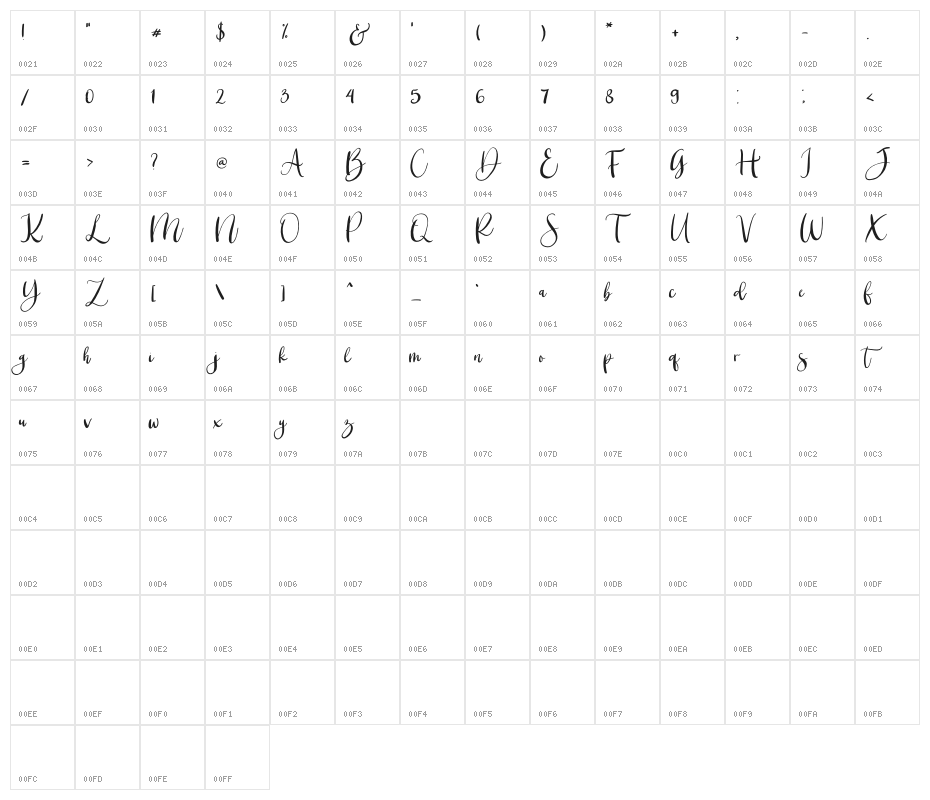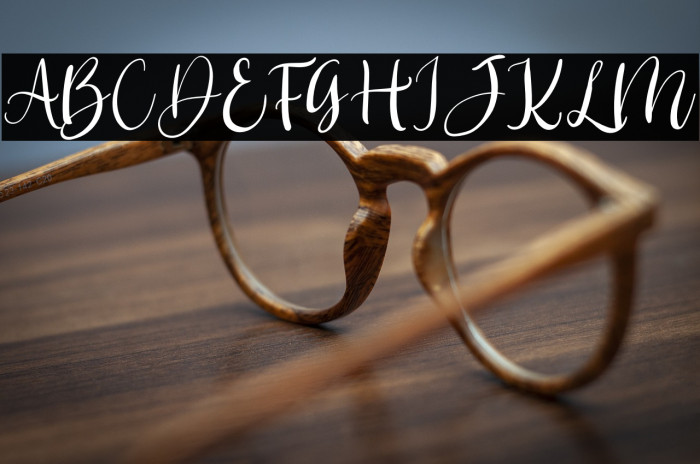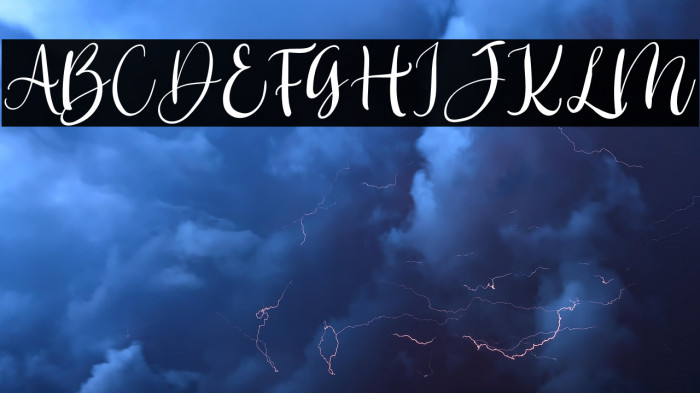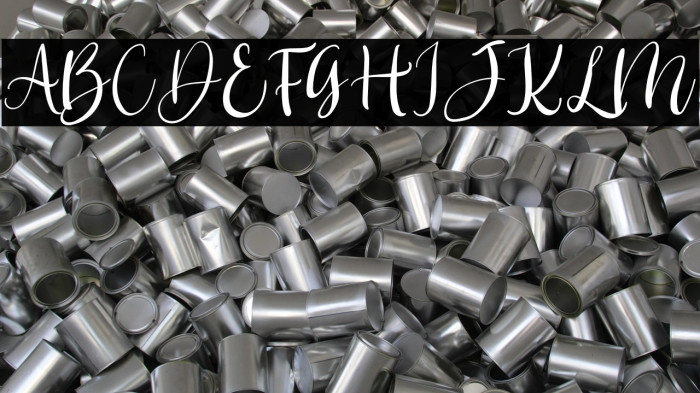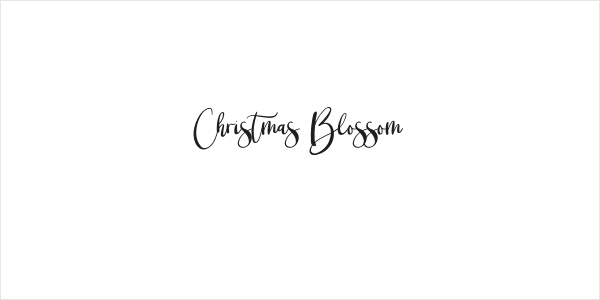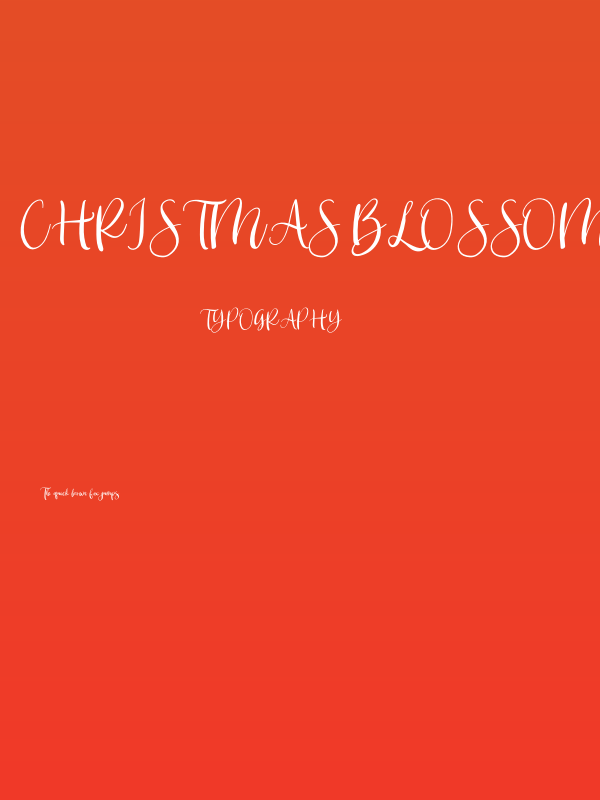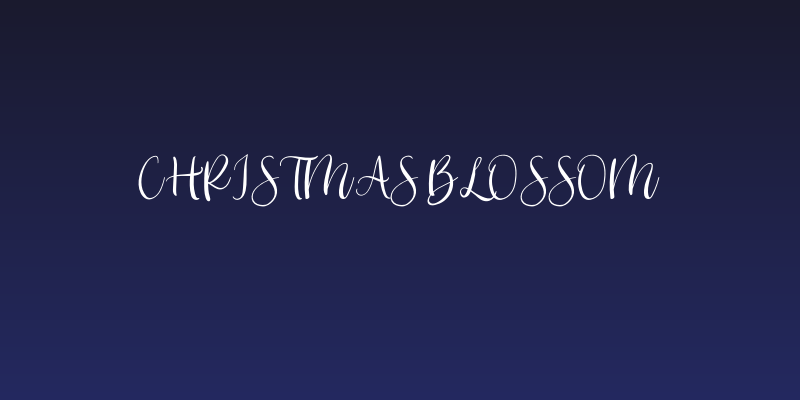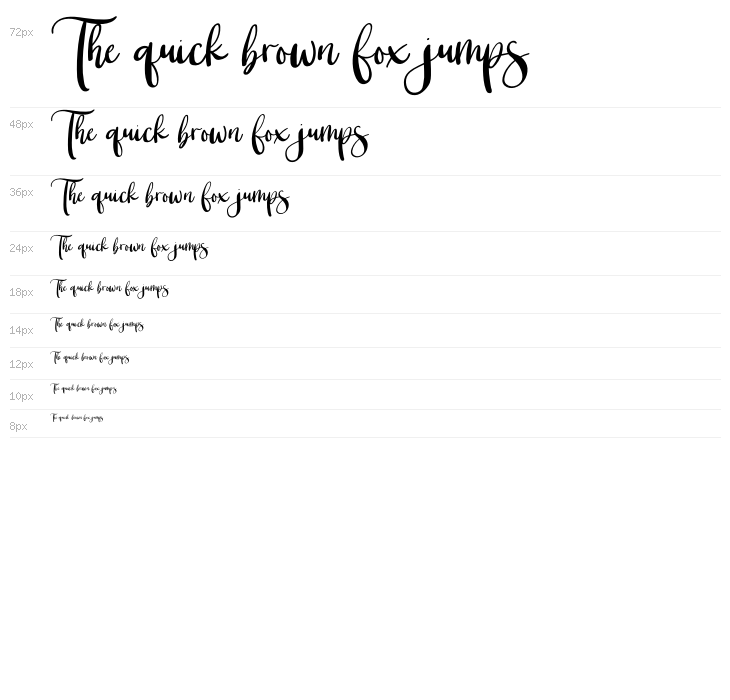
Christmas Blossom Font
Christmas Blossom Description
This font exhibits a charming and elegant script style, characterized by its flowing, cursive letterforms. The uppercase letters are bold and sweeping, with a graceful, hand-drawn appearance that adds a personal touch. The lowercase letters maintain a consistent flow, with smooth connections between characters, enhancing the font's fluidity. The numerals are distinct and maintain the same cursive style, ensuring readability while adding a touch of sophistication. Special characters are thoughtfully designed to match the overall aesthetic, making this font versatile for various design needs.